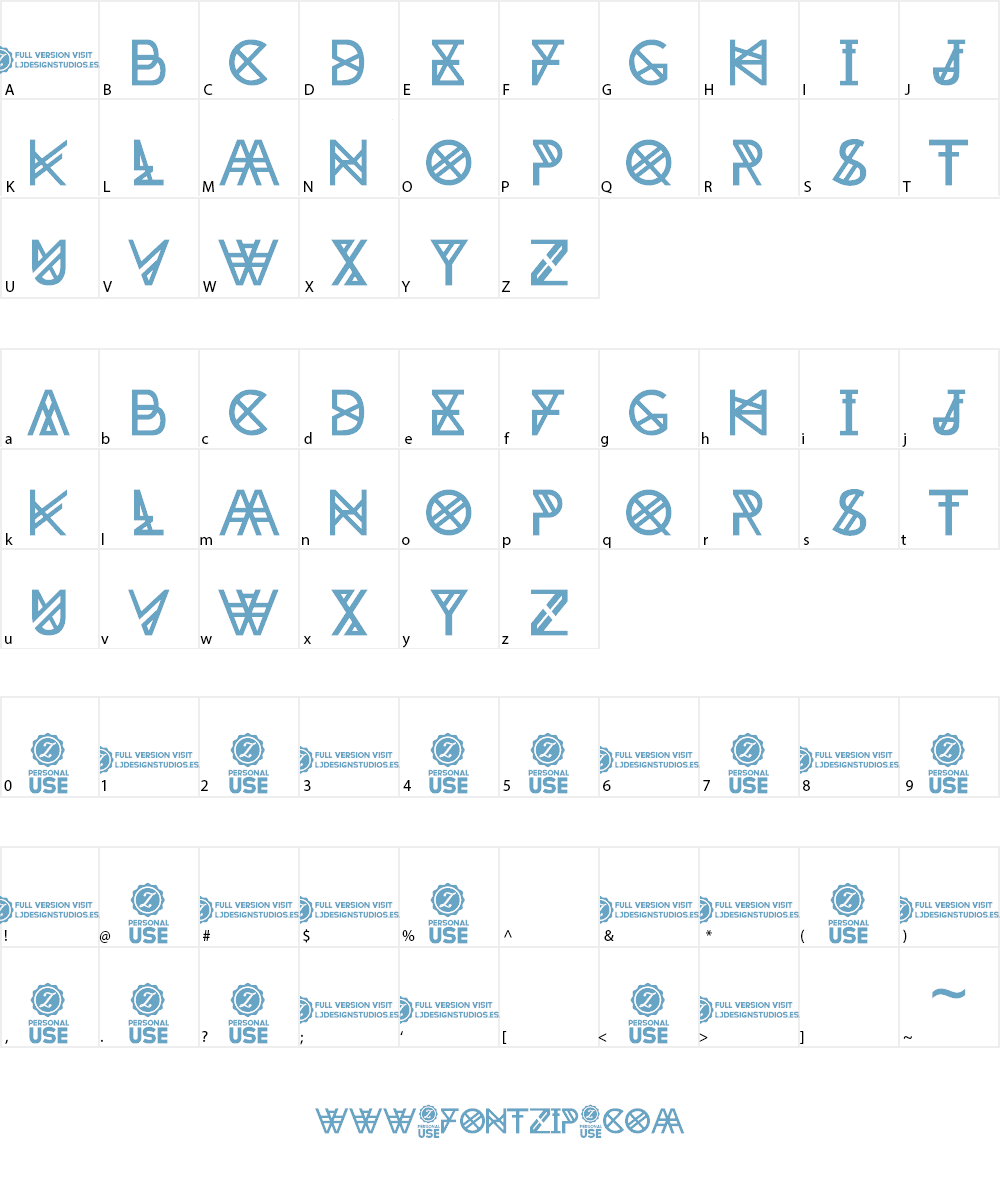
ZILAP Studio. Designer fonts with urban, futuristic, geometric concepts cultural and commercial licenses to use, professional, advertising and / or events.
Zilap Study "Culture of the Future"
ZILAP Estudio. Diseñador de fuentes tipográficas con conceptos urbanos, futuristas, culturales y geométricos con licencias comerciales para usos, profesionales, publicitarios y/o Eventos.
Zilap Estudio “La Cultura del Futuro”